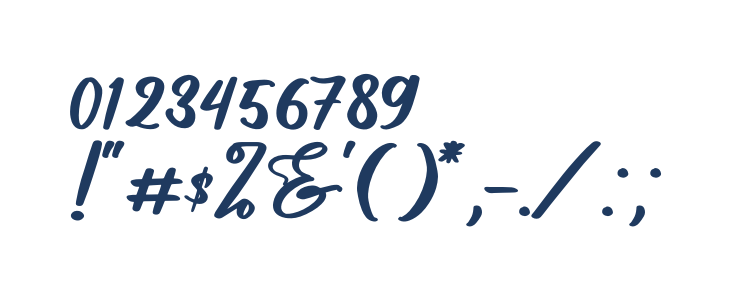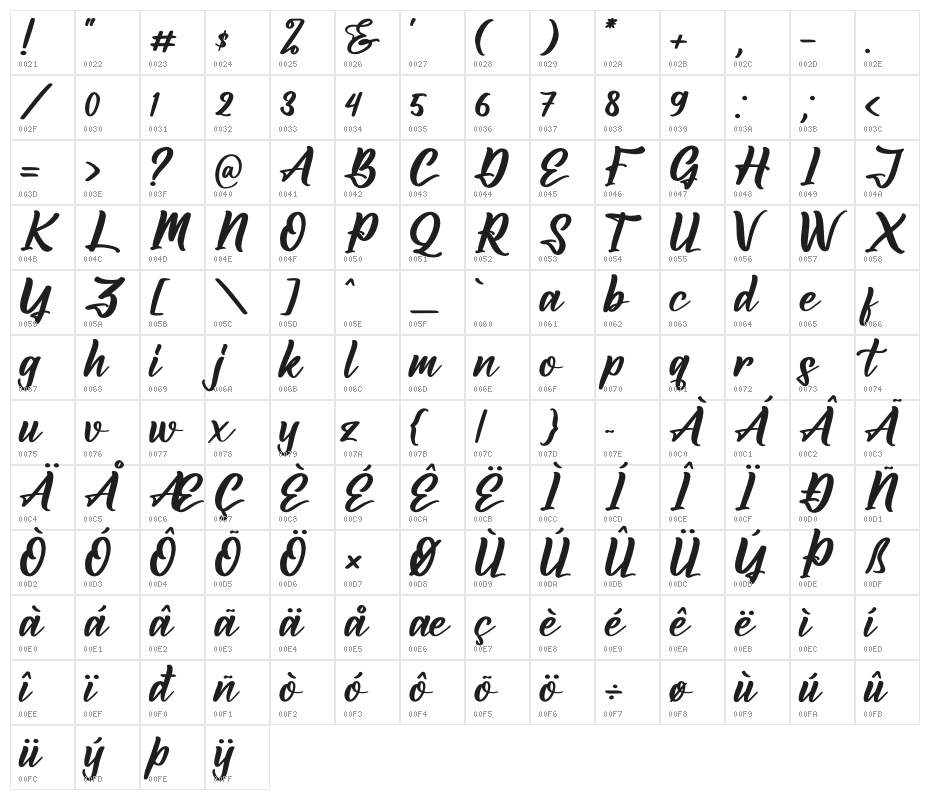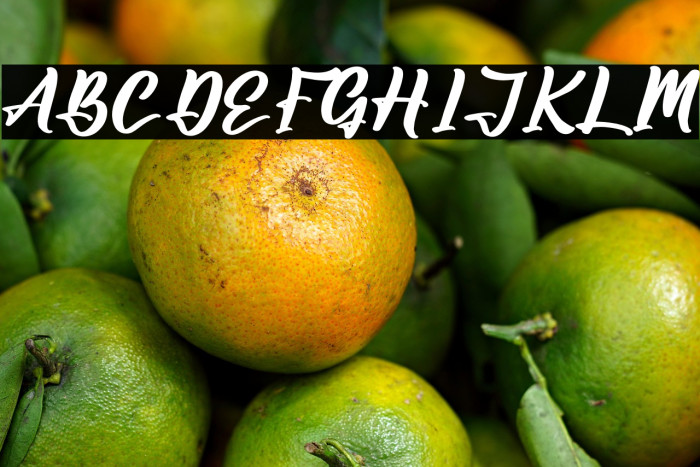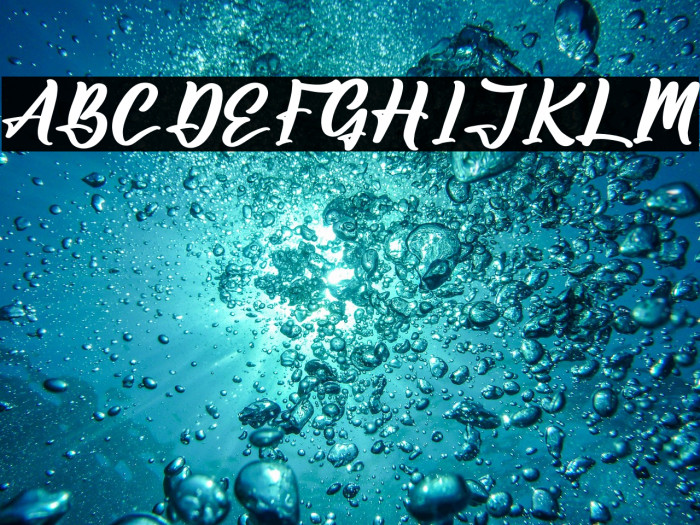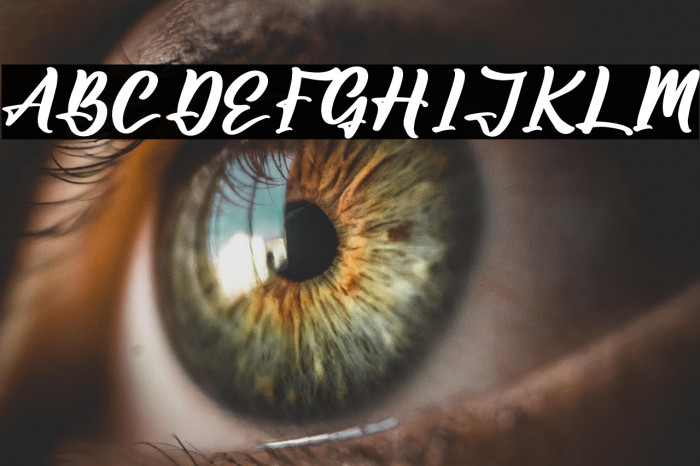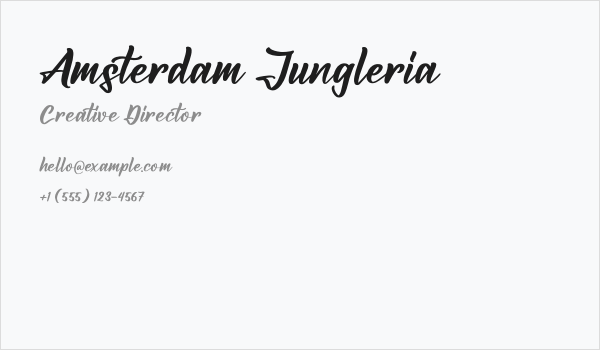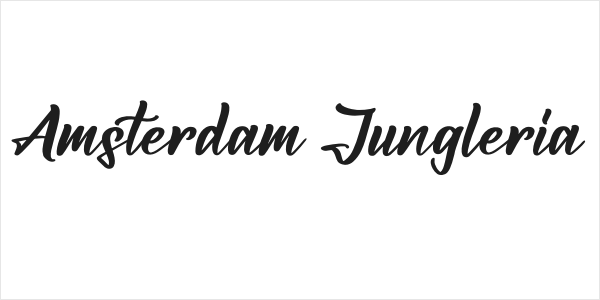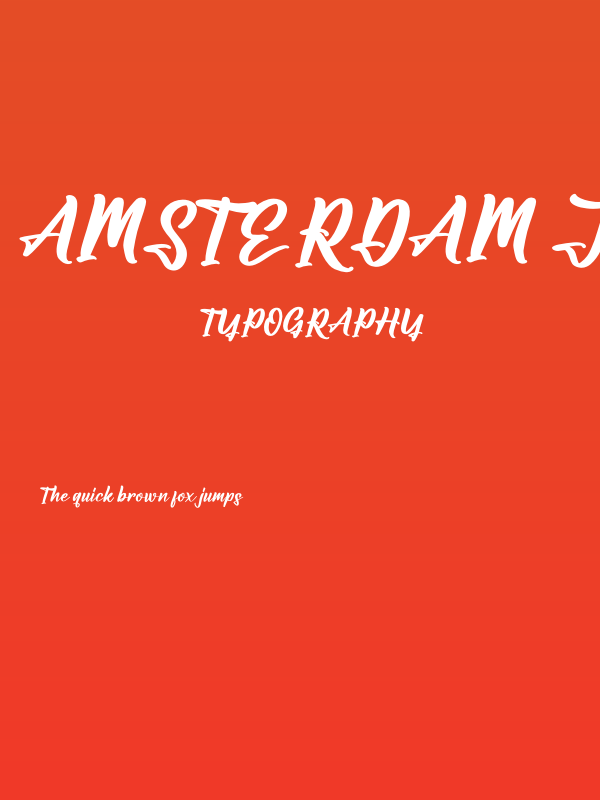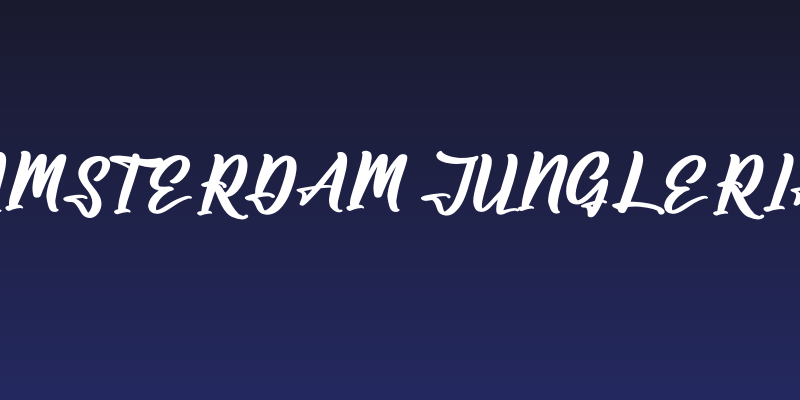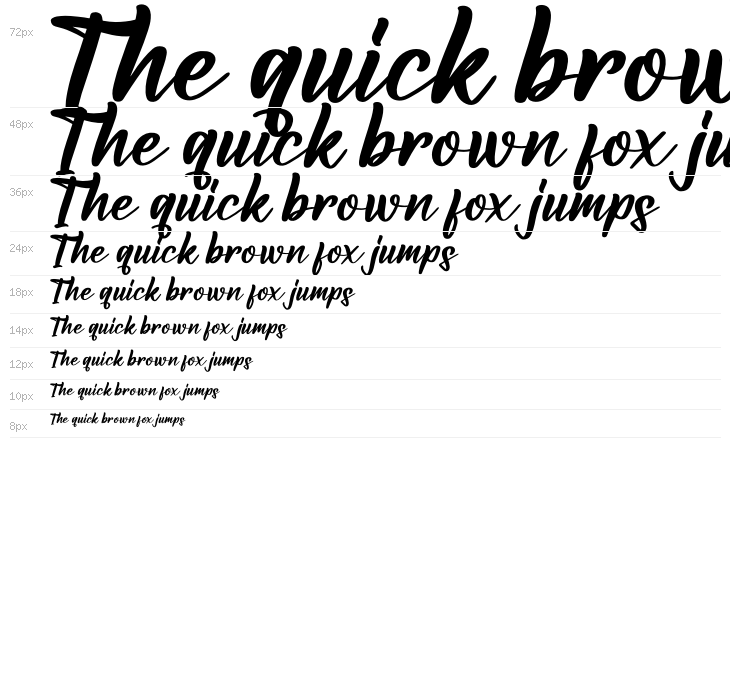
Amsterdam Jungleria Font
Amsterdam Jungleria Description
This font exudes a bold and dynamic script style, characterized by its fluid and connected letterforms. The uppercase letters are elegantly slanted, with a consistent stroke width that adds to its bold appearance. The lowercase letters maintain a cohesive flow, making it suitable for creating a sense of movement and energy. The numerals and special characters are designed to match the overall style, ensuring uniformity across all text elements. This font is ideal for projects that require a touch of elegance combined with a modern flair.
| Proposed Projects | Ideal for branding, invitations, signage, and any project needing a stylish, modern script. |